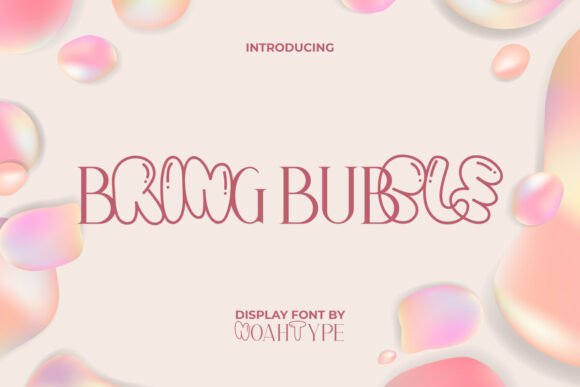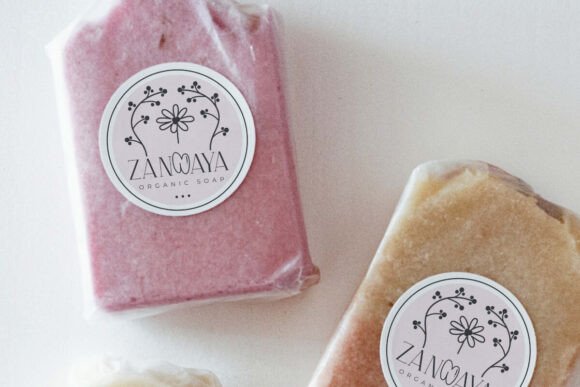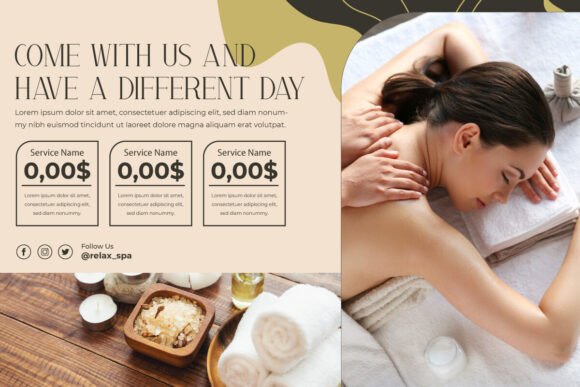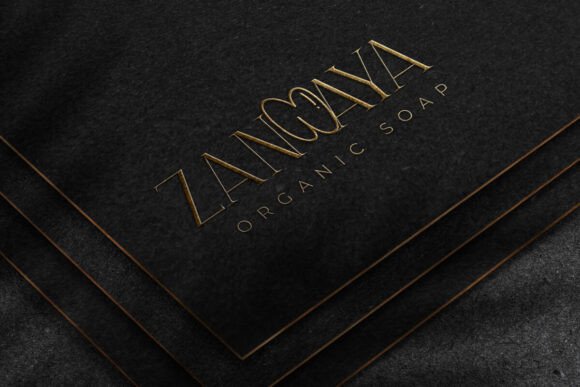
Bring Bubble Font: A Playful Display Font for Cute Branding
About the Bring Bubble Font
Introducing the Bring Bubble Font, a beautifully crafted typeface designed to elevate your creative projects. Bring Bubble Font is a font duo with playful fun balloon and bubble theme. This font has two different display characters, there is cartoon type with bubbles and serif. It will be good for any designs, such as brand image, custom design, invitation, label, magazine, poster, product packaging, quote, signage, stationery, website page, and more!
Bring Bubble Font’s playful, cartoonish style is ideally suited for children’s products, branding for playful companies, eye-catching posters, and vibrant packaging designs. It also works well for short headlines and invitations where its unique character can shine. However, its low x-height and decorative elements make it unsuitable for body text or UI elements requiring high readability.
This font pairs well with clean sans-serif fonts like Open Sans or Lato for a balanced contrast between playful and legible elements. For a more sophisticated feel, consider pairing it with a classic serif like Garamond or a slightly more geometric sans-serif like Futura. Avoid pairing it with other heavily stylized fonts as this could create visual clutter.
The overall personality of Bring Bubble Font is undeniably fun and friendly, making it a perfect choice for projects targeting a young or lighthearted audience.